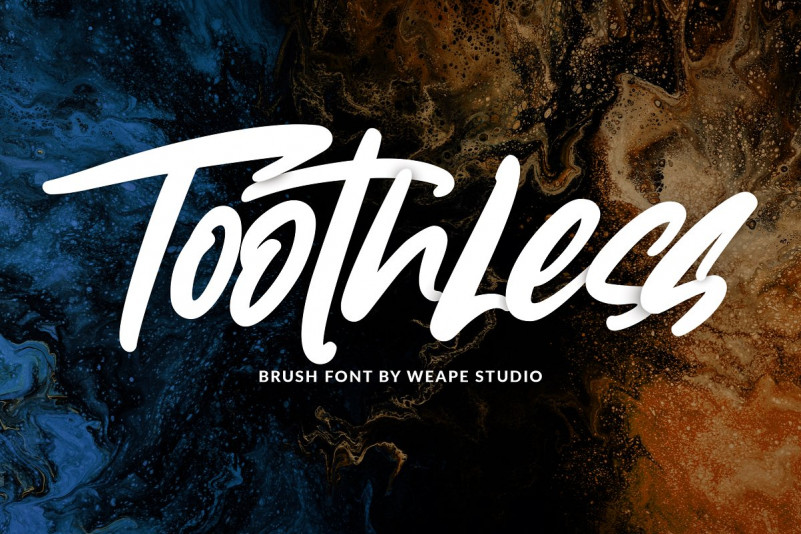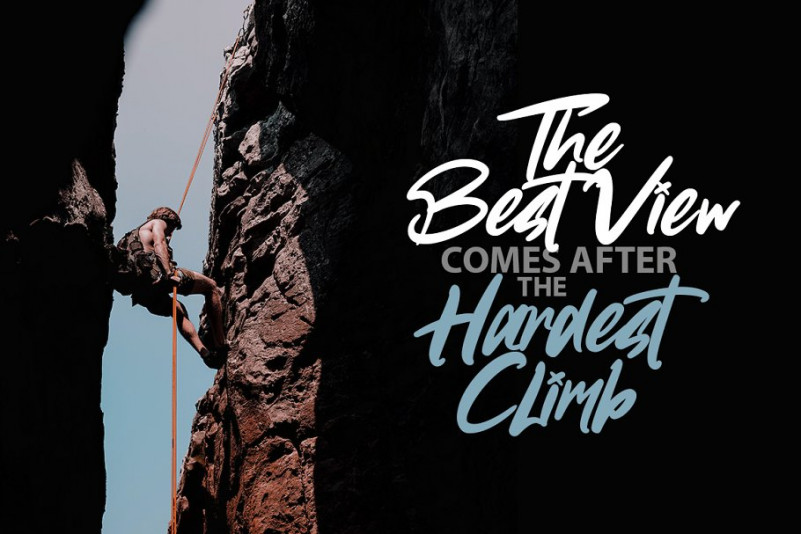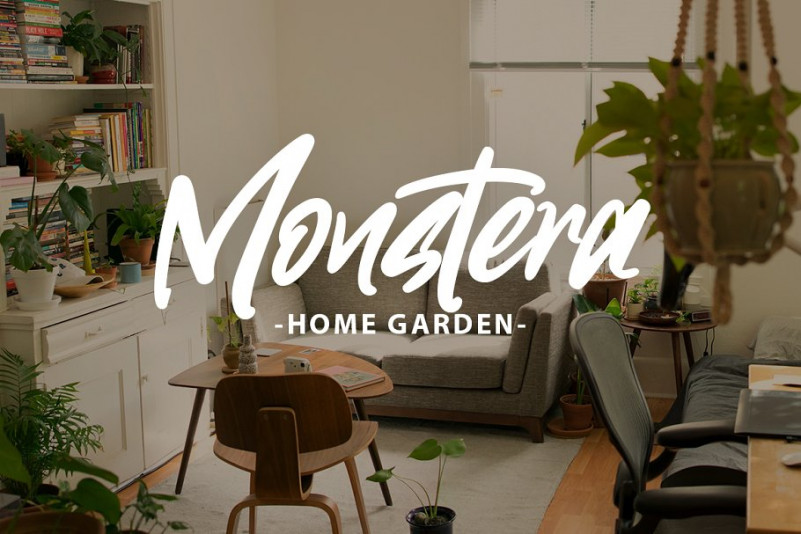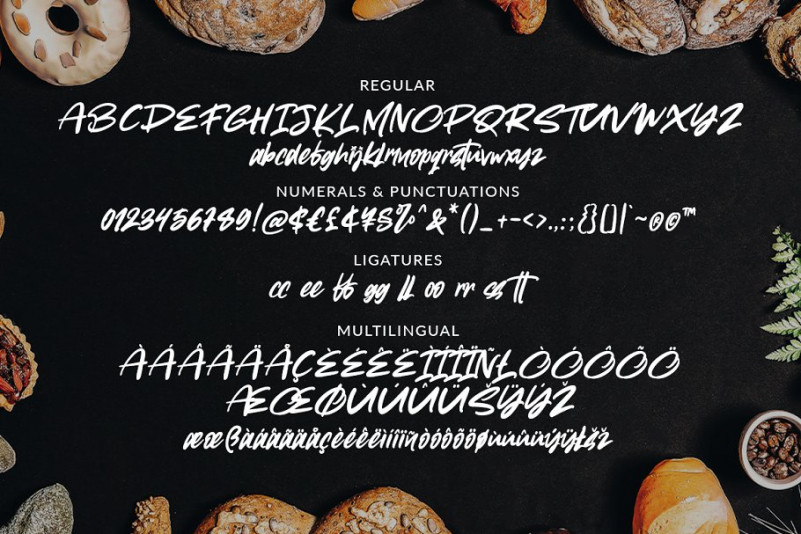
Toothless Brush Font
Continue to be a stylish brush font designed by Weape Design. A beautiful collection of hand-lettered modern calligraphy brush fonts. Hands Brush is guaranteed to deliver an unapologetically loud & fast-paced message. Introducing Toothless Font. It’s with the stroke of hand quick. You can use and enjoy Toothless, for promotional material and anything. And this font perfect for signature logo, handwritten quotes, product packaging, fashion magazine, photography, merchandise, branding projects, poster, social media post, book cover, flyer, and advertising. You can create easily and make it as if you wrote it yourself.